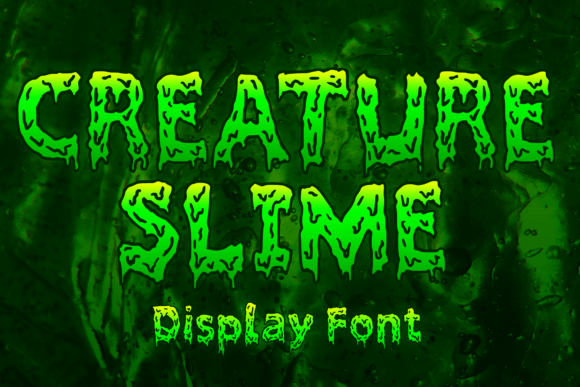
Meet Creature Slime Font, the ultimate game-changer for designers. This cool, slimy creature display font is the perfect addition to any design project, from stickers and t-shirt designs to logo creations and magazine covers. With Creature Slime Font, you’ll elevate your designs to new heights and leave a lasting impression on your audience. Its versatility and unique touch make it an invaluable asset for any designer looking to take their work to the next level.
Creature Slime Font Key Features
- Unique Characteristics: Creature Slime Font features a unique blend of futuristic and organic elements, with a slime-like texture and a bold, playful feel.
- Character Set: The font includes a comprehensive character set, including uppercase and lowercase letters, numbers, punctuation marks, and special characters.
- Style Options: Creature Slime Font offers various style options, including bold, italic, and regular, allowing designers to experiment with different looks and effects.
Creature Slime Font Review
I recently had the chance to work with the Creature Slime Font, and I must say it’s a unique addition to any project. Here are some of its strengths:
- ✨ The font’s playful and fun design makes it perfect for children’s content, entertainment, and even gaming projects.
- ✨ The bold and colorful characters are well-designed, and the overall aesthetic is quite appealing.
- ✨ The font is highly customizable, allowing you to adjust the color, size, and spacing to fit your specific needs.
- ⚠️ The font may not be suitable for formal or professional projects due to its casual and playful nature.
- ⚠️ The font’s design can be overwhelming if used excessively, so it’s essential to use it in moderation.
- ⚠️ Some users may find the font’s boldness and colorfulness distracting, especially in large blocks of text.
Overall, I think the Creature Slime Font is a great addition to any designer’s toolkit, but it’s essential to use it thoughtfully and in the right context. With its playful design and high customizability, it’s perfect for projects that require a fun and engaging aesthetic.
Some tips for getting the most out of the Creature Slime Font include:
– Using it for children’s book illustrations or designs.
– Creating fun and playful graphics for social media.
– Adding a whimsical touch to educational materials.
– Experimenting with different font sizes and colors to achieve unique effects.
Alternatives to Creature Slime Font
Pacifico is a beautiful, elegant script font that is perfect for creating a whimsical and playful atmosphere. It is ideal for use in invitations, posters, and other creative projects where a touch of sophistication is needed.
Compared to Creature Slime Font, Pacifico has a more refined and polished look, making it suitable for a wider range of applications. While Creature Slime Font is great for kids’ projects and playful branding, Pacifico is better suited for more formal or high-end designs.